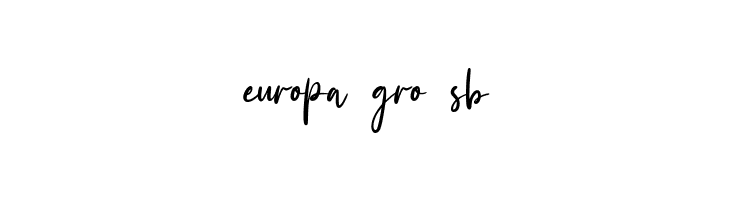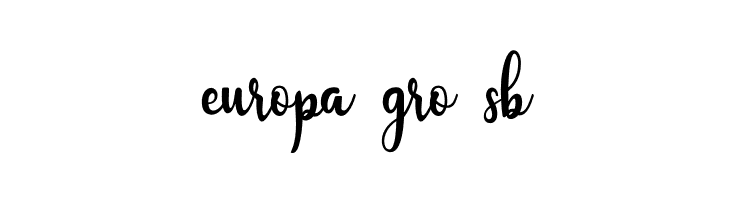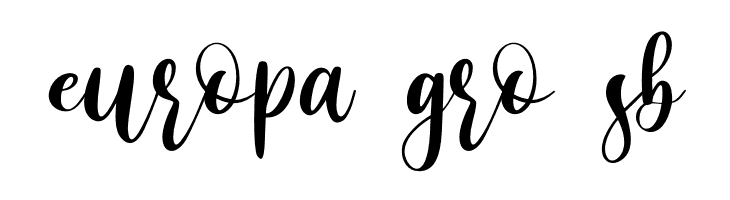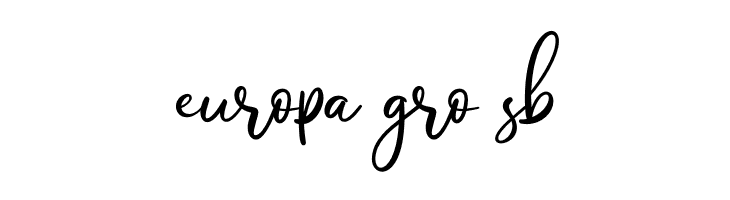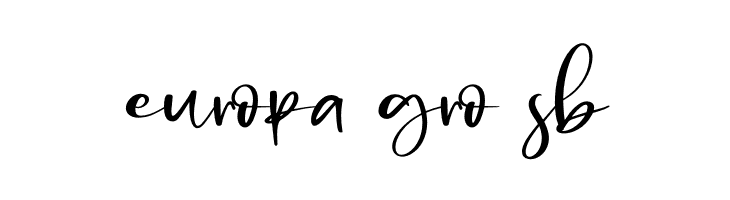
A playful, whimsical handwritten font with fluid, interconnected strokes.
A lively, expressive handwritten font with fluid, dynamic strokes.
A lively, flowing script font with elegant curves and connected strokes.
A playful, casual handwritten font with dynamic strokes and a fluid style.
An elegant and flowing script font with graceful curves and cursive lines.
An elegant, flowing script font with bold, expressive strokes.
A lively and dynamic script font with playful loops and cursive strokes.
A lively and expressive handwritten font with fluid, dynamic strokes.
A playful, flowing handwritten font with elegant curves and a friendly appearance.
A flowing, cursive font with elegant loops and decorative flourishes.